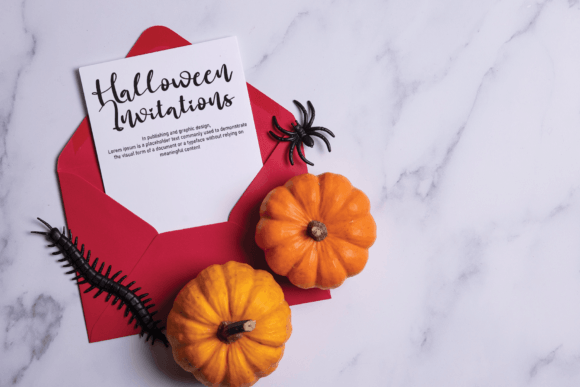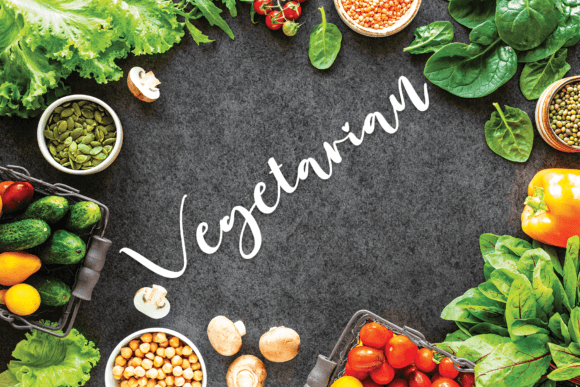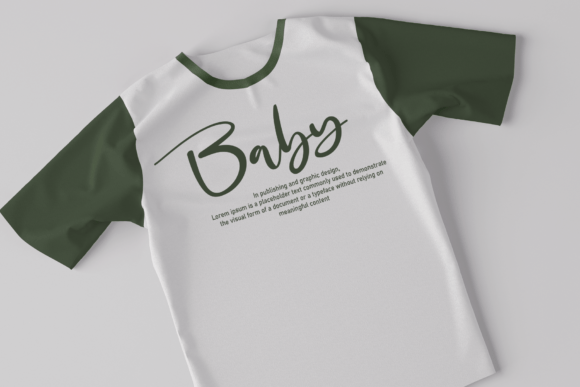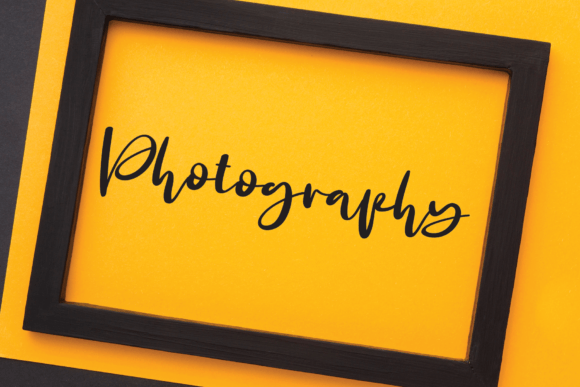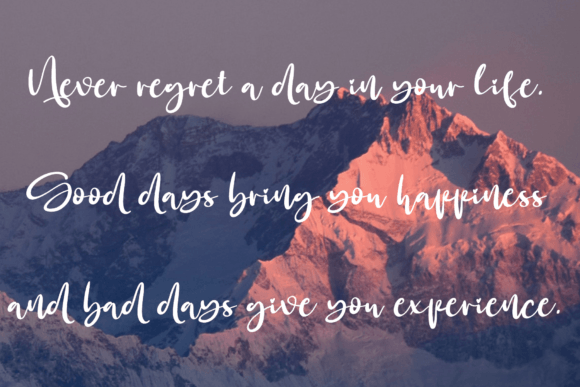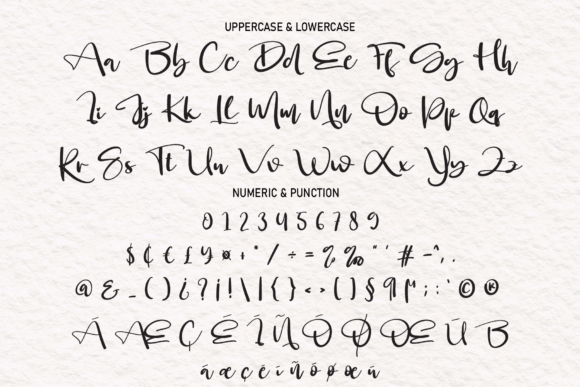
Introduction to Side Font
Have you ever stumbled upon the perfect font while working on a creative project, only to find yourself lost in a world of endless design possibilities? That’s exactly what happened to me when I discovered the enchanting Side Font. Its delicate curves and whimsical flair have the power to transform any design into a work of art.
As a designer, I can attest to the importance of having a reliable design resource at your fingertips. Side Font is more than just a pretty face – it’s a valuable tool that can elevate your branding, marketing materials, and even personal projects to the next level. Whether you’re working on a high-end campaign or a simple greeting card, Side Font’s versatility and high-quality aesthetic make it an indispensable asset in your design toolkit.
Key Features of Side Font
- High-quality font with a transparent background, ideal for creative projects that require a clean and modern design.
- Side Font comes in 3 different sizes: Small, Medium, and Large, each with its unique characteristics and design elements.
- Designed to be versatile and adaptable, Side Font is perfect for use in logos, branding, web design, and other creative projects.
- Unique characteristic: Side Font’s transparent background allows for seamless integration with images and other design elements, creating a professional and polished look.
Honest Review: Side Font
As a designer, I’m always on the lookout for high-quality fonts to enhance my creative projects. Recently, I had the chance to work with Side Font, and I must say it’s been a game-changer. The font’s unique design and versatility make it an excellent addition to any design resource.
- ✨ Unique design that adds a touch of elegance to any project
- ✨ High-quality font files that ensure crisp and clear typography
- ✨ Transparent background option that allows for seamless integration with any design
However, there are a few limitations to consider. The font may not be suitable for projects that require a more bold or playful tone.
- ⚠️ May not be suitable for bold or playful projects
- ⚠️ Limited character set, which may not be ideal for lengthy text
Overall, I’m impressed with Side Font and would highly recommend it to designers looking for a high-quality, elegant font to enhance their creative projects. With its unique design and transparent background option, it’s an excellent addition to any design resource.
Tips for Getting the Most Out of Side Font
Use the Side Font to add a creative touch to your design projects. You can also use it to create a transparent background, perfect for overlaying on images. For high-quality results, be sure to use the font on a high-resolution image.